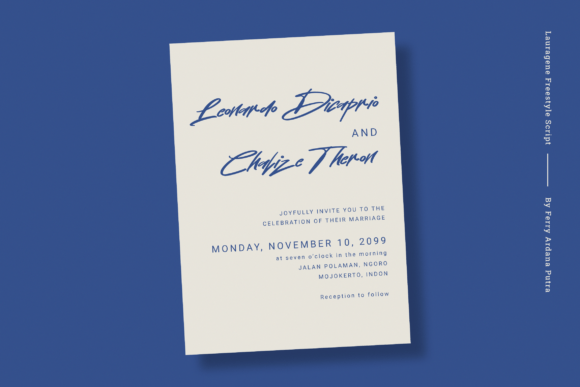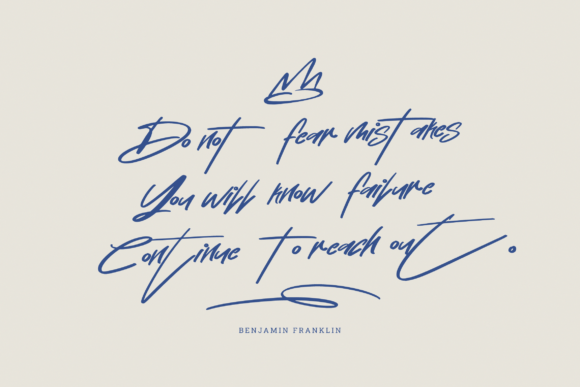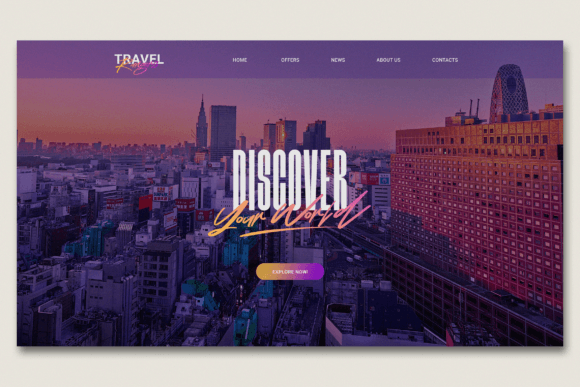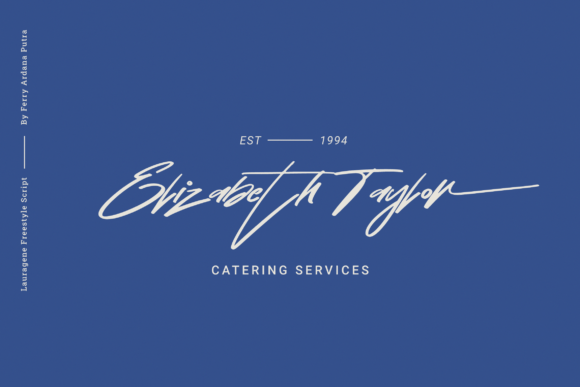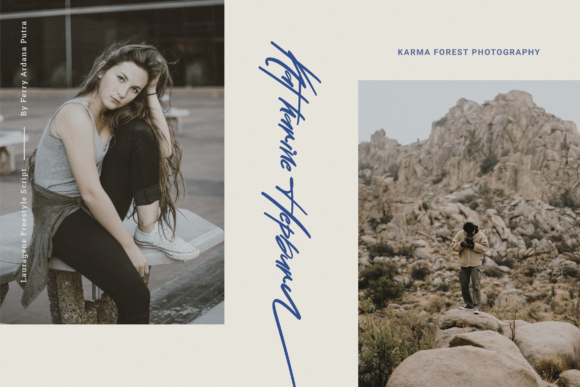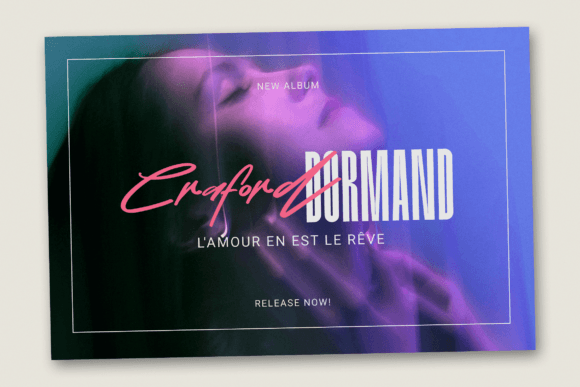
Introduction to Lauragene Font Font
Fonts play a crucial role in design, and the Lauragene Font font is a typeface that brings both character and versatility to any project. Whether you’re working on a branding project, a website, or a print design, the Lauragene Font font offers a unique style that can elevate your work.
Introducing Lauragene, a versatile freestyle script font designed to elevate your projects with a touch of elegance and spontaneity.
Lauragene captures the authentic feel of hand-lettered art, with fluid strokes and organic curves that bring sophistication to any design Each letter has been meticulously crafted, giving Lauragene a distinctive charm that shines in both digital and print mediums.
The Lauragene Font font is more than just a typeface – it’s a design tool that helps you communicate your message with style and clarity. Its unique character set and versatile design make it suitable for a wide range of applications, from elegant invitations to bold headlines.
With its carefully crafted letterforms and balanced proportions, the Lauragene Font font ensures readability and visual appeal across all mediums.
The Lauragene Font font stands out with its unique design, exceptional readability, and versatility across various design applications.